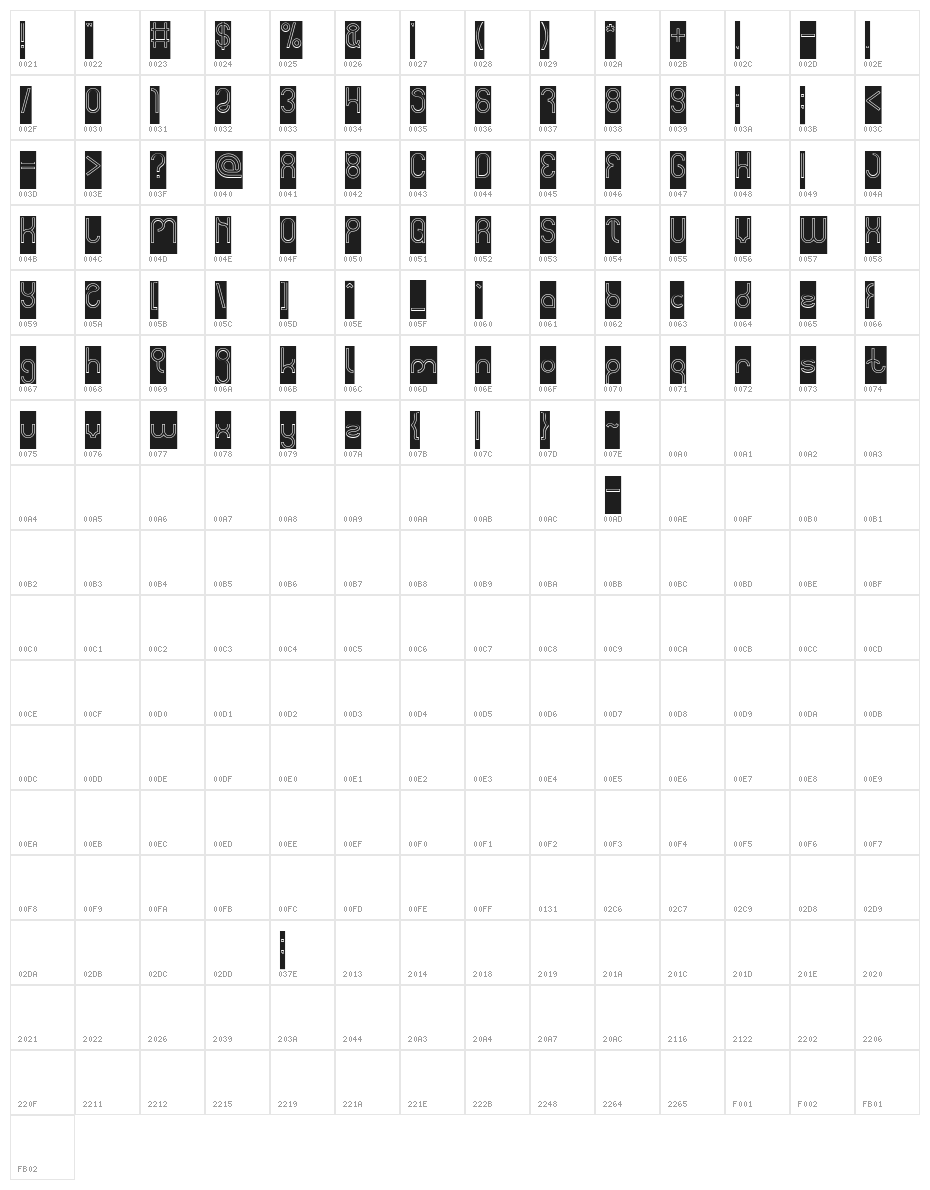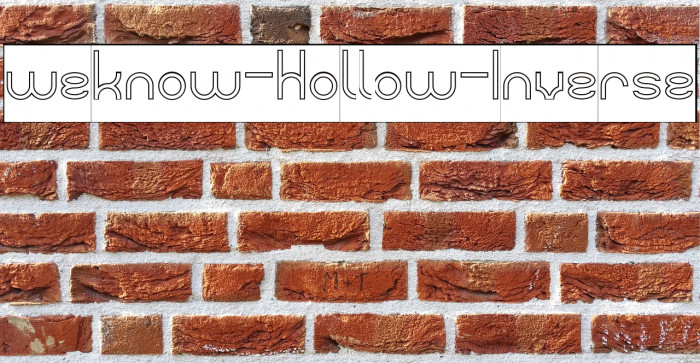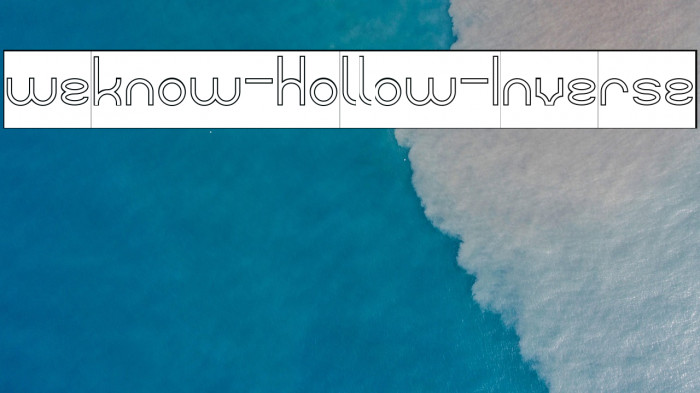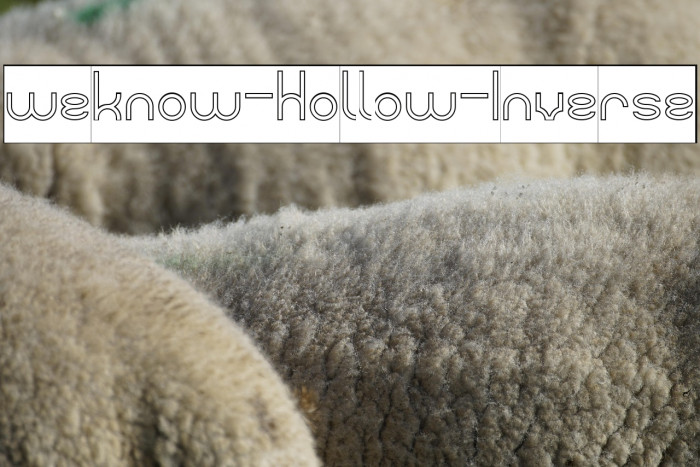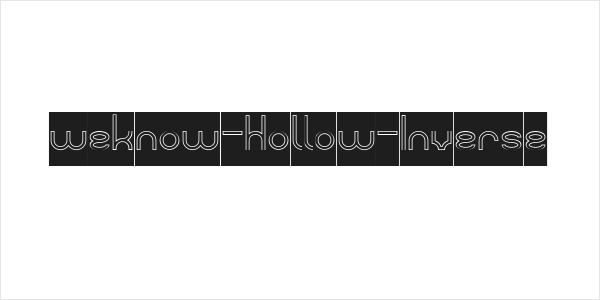
weknow-Hollow-Inverse Font
weknow-Hollow-Inverse Description
This font features a unique hollow design with an inverse style, where the characters are outlined with a consistent stroke width, creating a striking and modern appearance. The uppercase and lowercase letters maintain a uniform height, contributing to a cohesive look. The numerals and special characters follow the same design principles, ensuring versatility across different uses. The font's geometric shapes and clean lines make it ideal for projects that require a contemporary and eye-catching aesthetic.
| Proposed Projects | Ideal for branding, posters, digital art, and modern web design projects. |